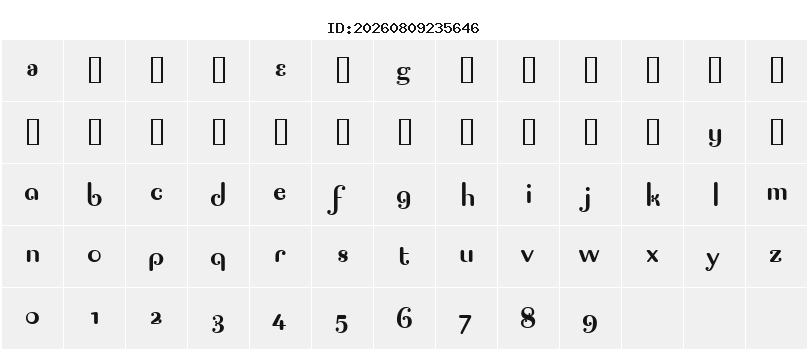
About Pagan Poetry.ttf
Pagan Poetry.ttf is a modern, elegant sans-serif font designed for ultimate readability and visual harmony. Perfect for branding, headlines, web design, and print materials.